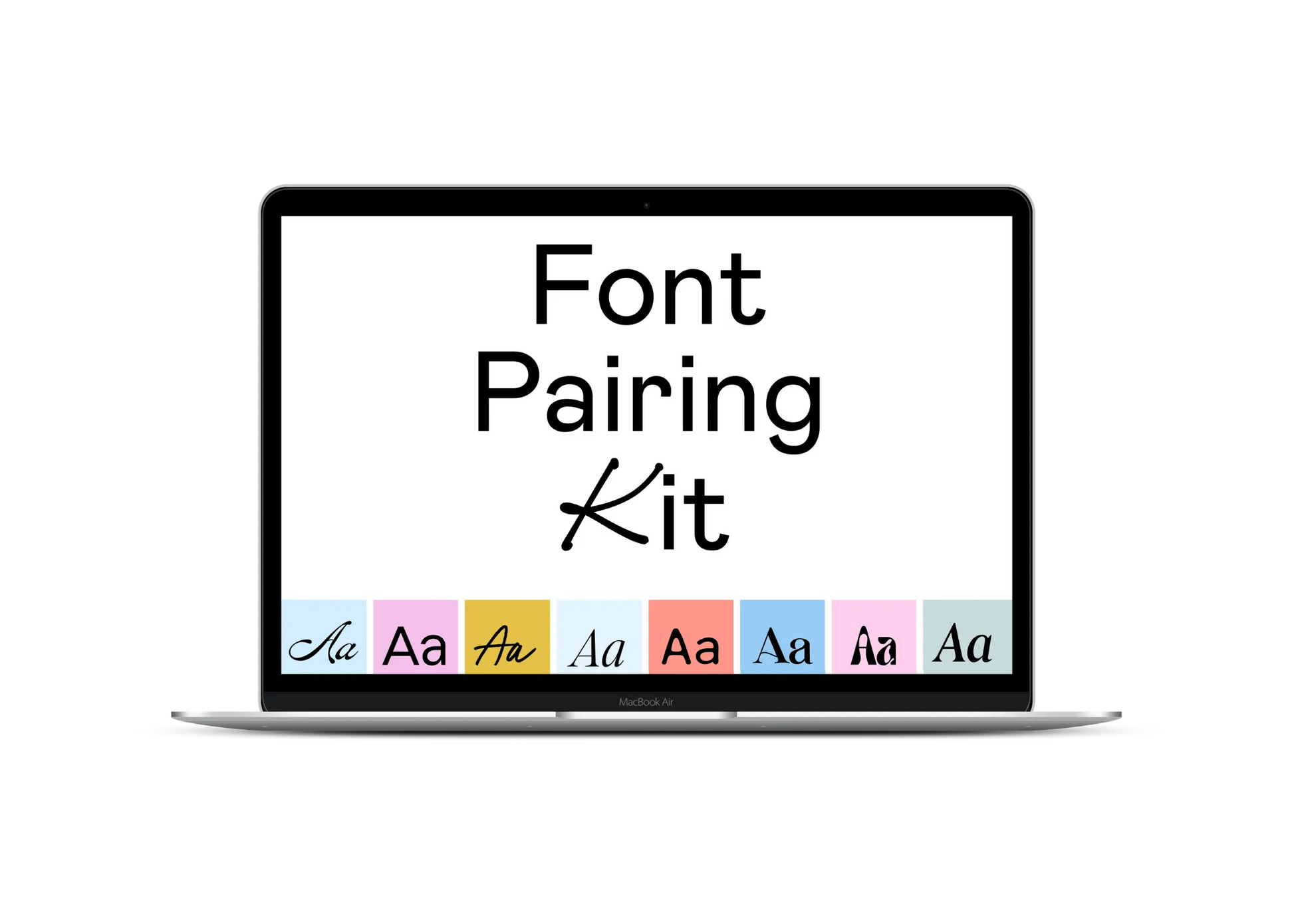
INTRODUCING:
An expertly curated database of font pairings ◡̈
Text: 'for neutral & minimal brands', featuring a preview of the font 'Lavonia'
Text: 'for warm & bright brands', featuring a preview of the font 'El Camino'
Text: 'for botanical brands', featuring a preview of the font 'Louize'
Text: 'for monochromatic brands', featuring a preview of the font 'Caslon Pro'
Text: 'for bold & vibrant brands', featuring a preview of the font 'Geomatik'
Text: 'for bright and warm brands', featuring a preview of the font 'Recoleta'
Text: 'for cosmic & ethereal brands', featuring a preview of the font 'Tokyo Dreams'
Text: 'for neutral & minimal brands', featuring a preview of the font 'Ivy Presto'
Text: 'for woodsy & rustic brands', featuring a preview of the font 'Barley'
Text: 'for retro 70's brands', featuring a preview of the font 'Tangerine'
Text: 'for pastel brands', featuring a preview of the font 'Neulis'
Text: 'for neutral & minimal brands', featuring a preview of the font 'Editors Note'